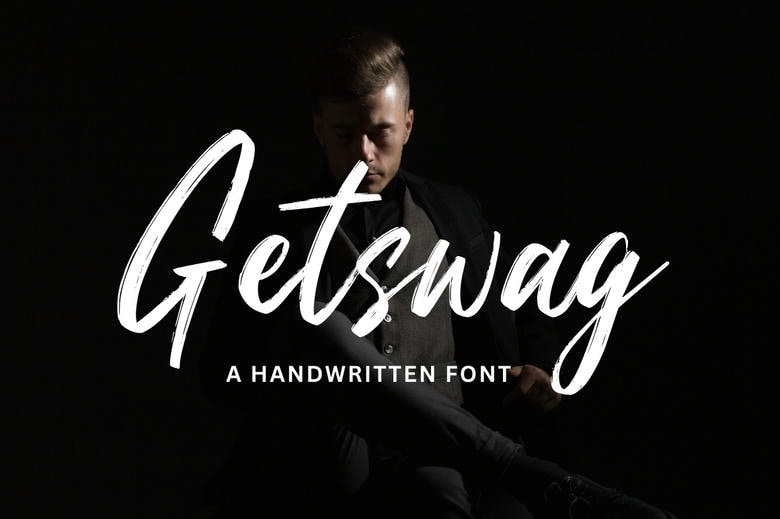
Getswag Font
Getswag is a brush typeface that is written by hand creating a hand-made effect to your design. This font replicates the vigor of brush lettering with its vibrant strokes and spontaneous flair. Ideal in projects that require an informal and slapstick appeal, like posters, logos or merchandise. Getswag gives a pizzazz of character and personality to your text and makes it stand out with refined and modern appeal.
Getswag Brush Script Font